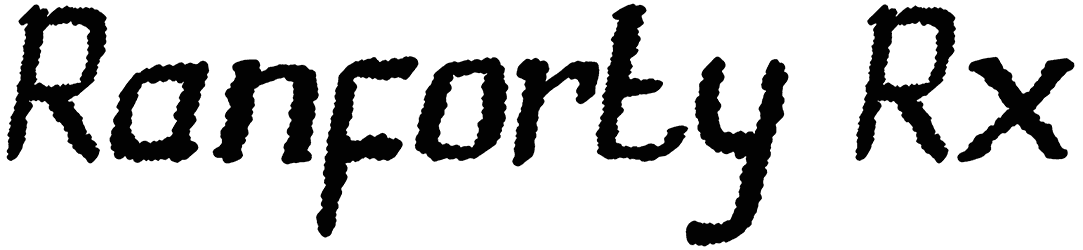
Ranforty Rx Font
If your design lacks a cool and realistic style for its words, this distressed font has the potential to capture your eye. This display font with its worn letters will add a touch of urban vibe to your layouts, such as an action game scene. Ranforty Rx font is going to level up your design and make it unforgettable.